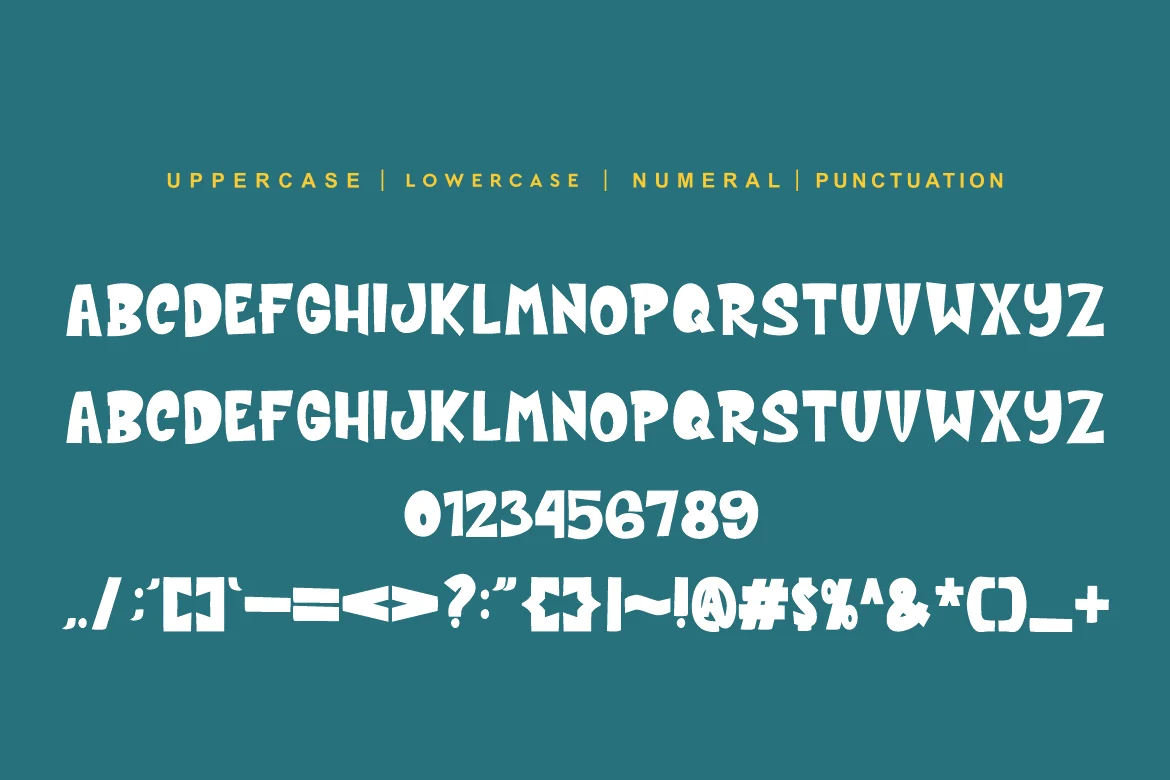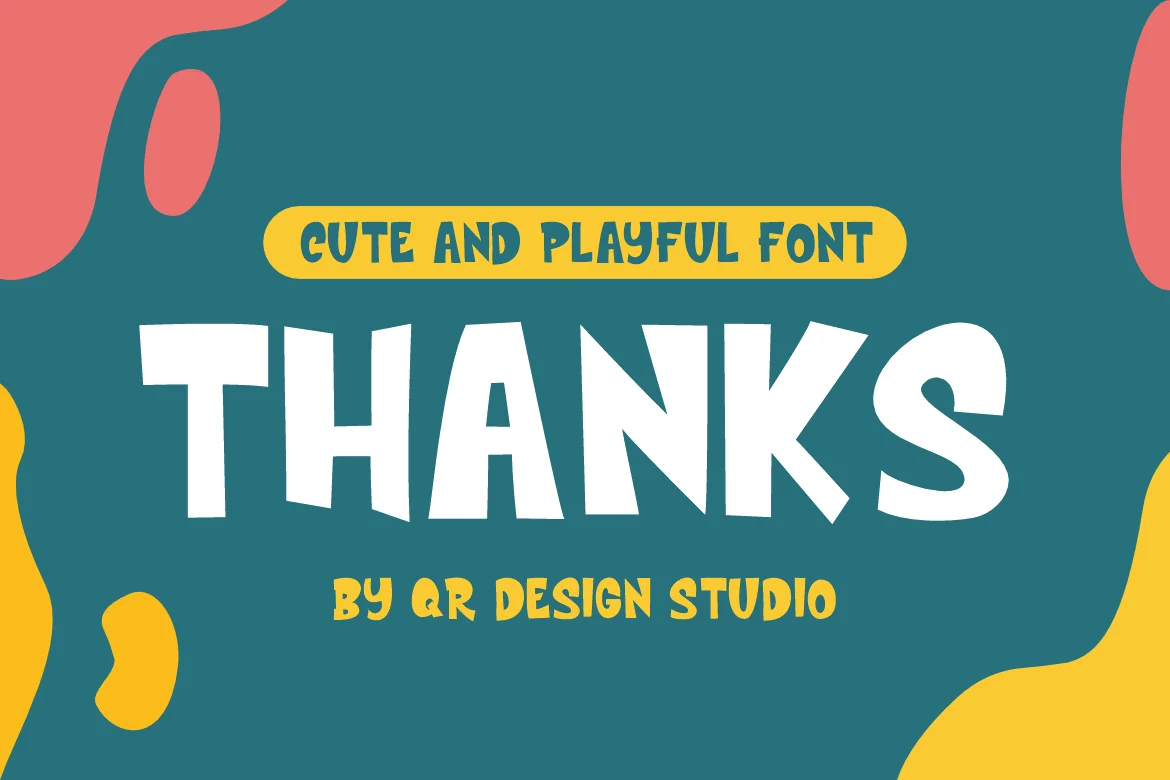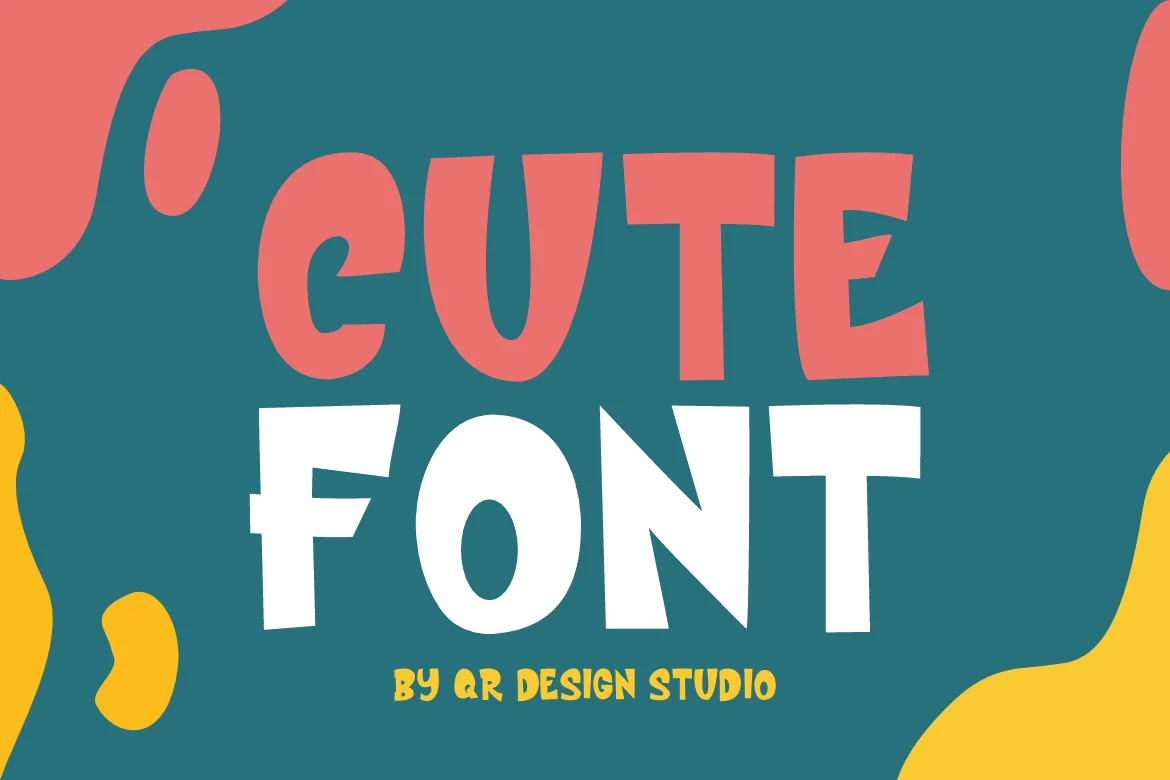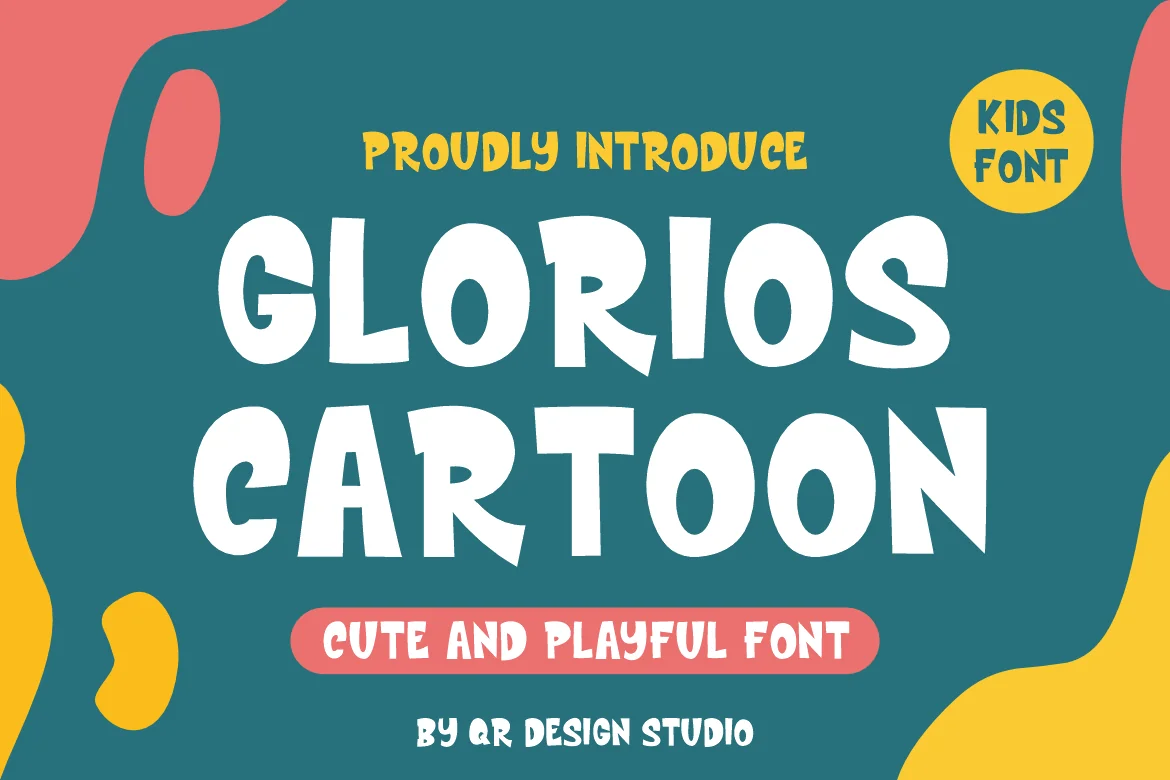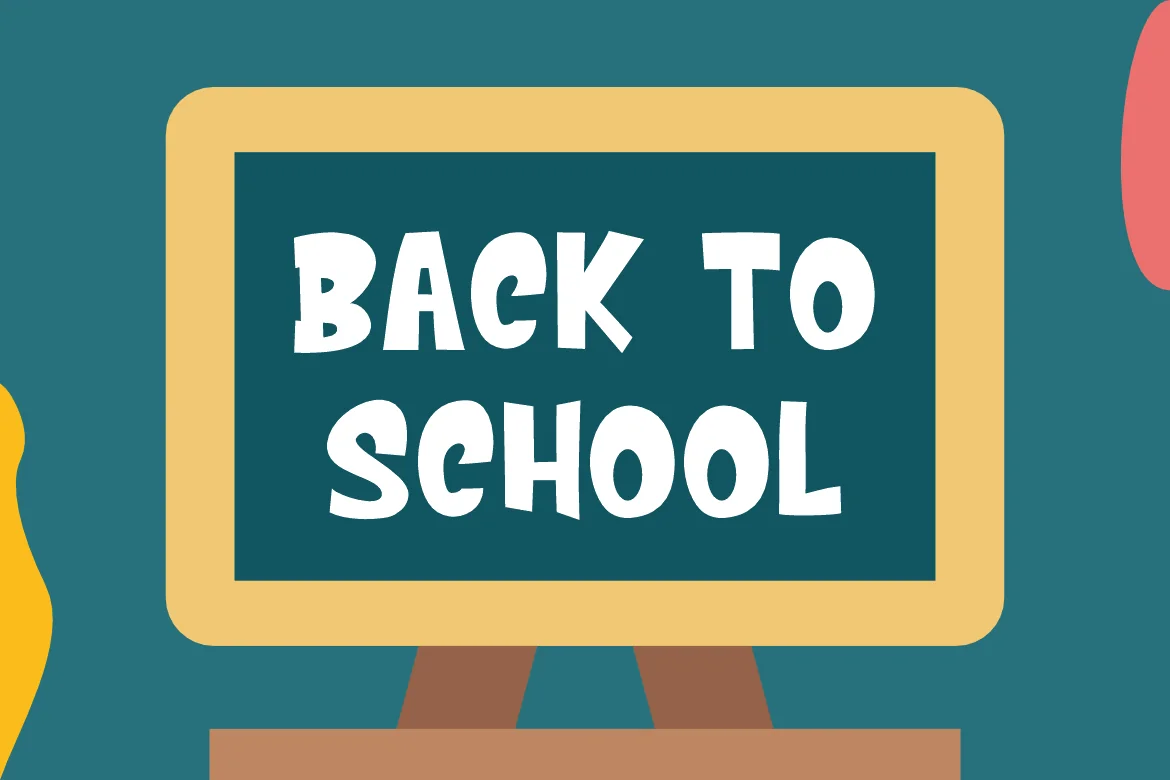
Glorios Cartoon – Comic Fonts
Glorios Cartoon – Comic Fonts is a bold and authentic display font. The font is suitable for any branding project like logo, kids, summer, food, poster, kids, and many more. Outstanding in a wide range of contexts.